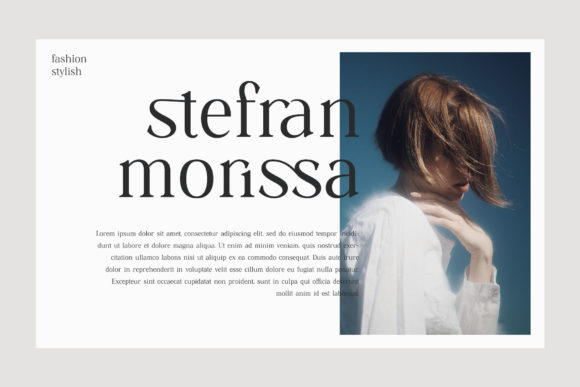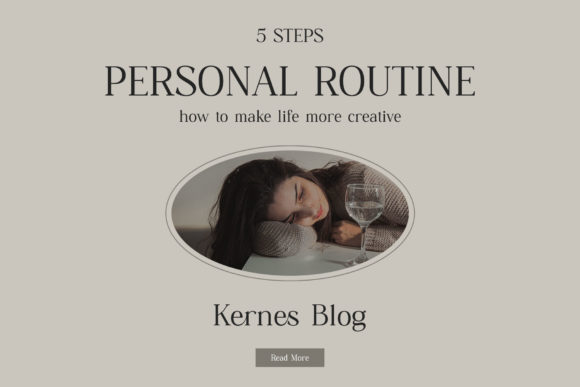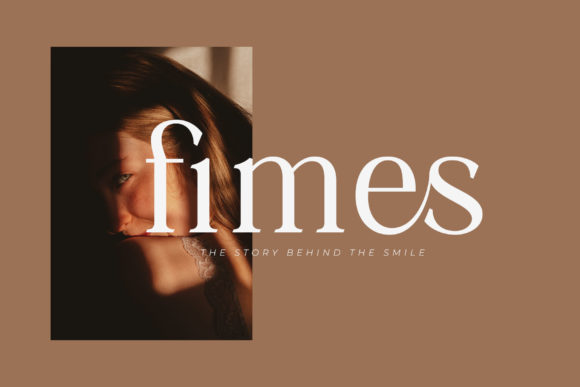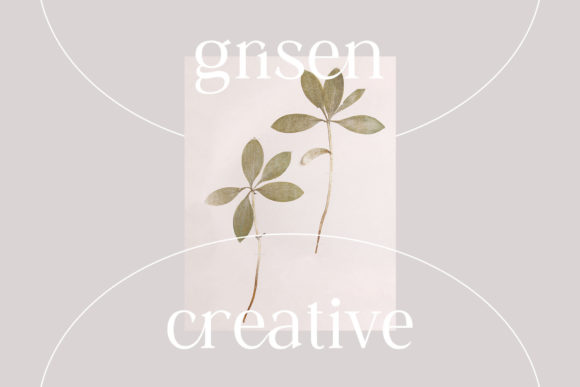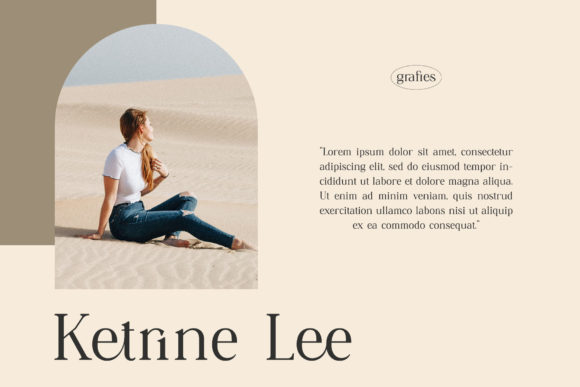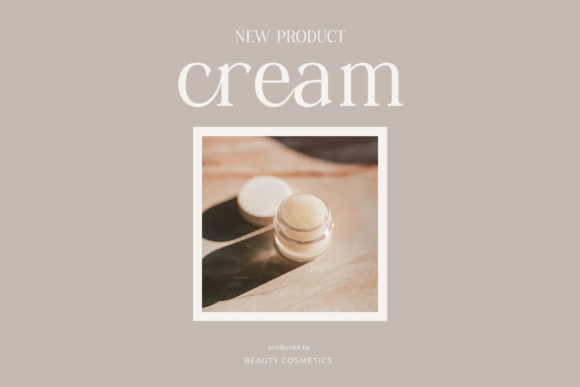
Discover the Elegance of Grafies Font: Elevate Your Designs with Authenticity and Versatility
In the realm of typography, a font can make or break the visual appeal of a design. For designers and crafters seeking a serif font that exudes authenticity and adaptability, Grafies Font is an exceptional choice. This comprehensive guide will delve into the world of Grafies, exploring its features, benefits, and endless possibilities for elevating your designs.
What is Grafies Font?
Grafies is an authentic and adaptable serif font, meticulously crafted to bring a touch of sophistication to any design project. Its classic yet modern aesthetic makes it an ideal choice for a wide range of applications, from posters and flyers to prints and digital media.
Key Features of Grafies Font
- Authenticity: Grafies boasts a genuine, traditional feel that adds a layer of depth and character to your designs.
- Adaptability: This versatile font seamlessly adjusts to various design contexts, ensuring it looks stunning on any medium.
- Serif Excellence: The carefully designed serifs of Grafies enhance readability and add a touch of elegance to your text.
- Endless Possibilities: With Grafies, your creativity knows no bounds. Experiment with different design elements, and watch your imagination come to life.
Benefits of Using Grafies Font
Grafies offers numerous benefits that make it a go-to choice for designers and crafters:
- Unique Visual Identity: Grafies helps you establish a distinctive visual identity for your brand or project, setting you apart from the competition.
- Enhanced Readability: The font’s clear and concise design ensures your message is conveyed effectively, making it perfect for body text and headings.
- Flexibility: Grafies is suitable for various design applications, from print materials to digital platforms.
- Time-Saving: With Grafies, you can create stunning designs quickly and efficiently, saving you time and effort.
Exploring Endless Possibilities with Grafies
Grafies is more than just a font – it’s a gateway to creative exploration. Here are some ideas to get you started:
- Poster Design: Create eye-catching posters for events, promotions, or announcements using Grafies.
- Flyer Design: Design captivating flyers that grab attention and convey your message effectively.
- Print Materials: Use Grafies for brochures, business cards, and other print materials to add a touch of sophistication.
- Digital Media: Apply Grafies to your website, social media, or email marketing campaigns to create a cohesive brand image.
Tips for Getting the Most Out of Grafies
To maximize the potential of Grafies, keep the following tips in mind:
- Experiment with Font Sizes: Find the perfect balance between headings and body text to create visual harmony.
- Play with Color: Combine Grafies with a range of colors to evoke emotions and convey your brand’s personality.
- Mix and Match: Pair Grafies with other fonts to create unique and intriguing typography.
Grafies Font is a game-changer for designers and crafters seeking an authentic and adaptable serif font. With its exceptional features, benefits, and endless possibilities, Grafies is poised to elevate your designs and help you achieve your creative goals. Unlock the full potential of Grafies and discover a world of typographic excellence.